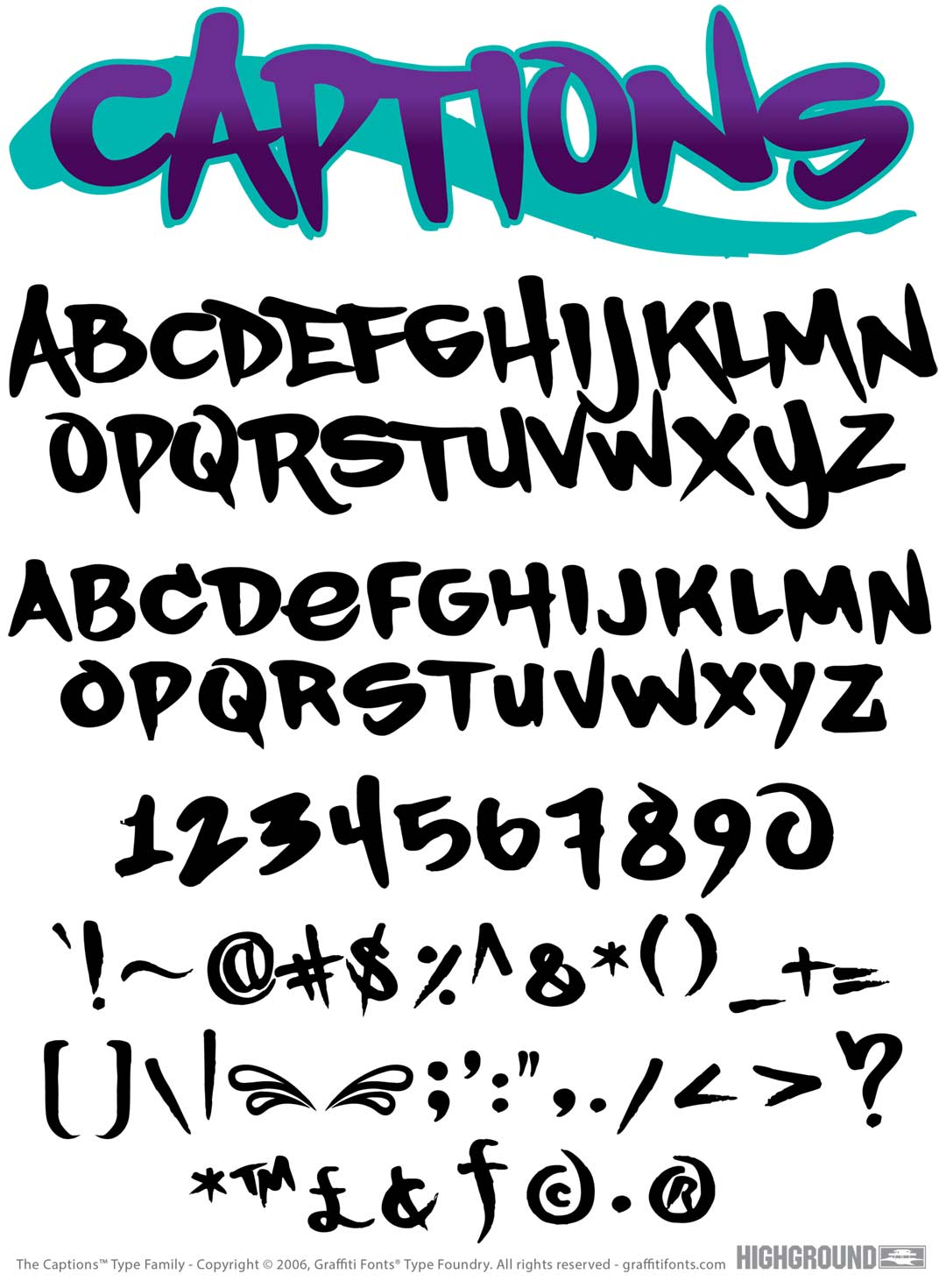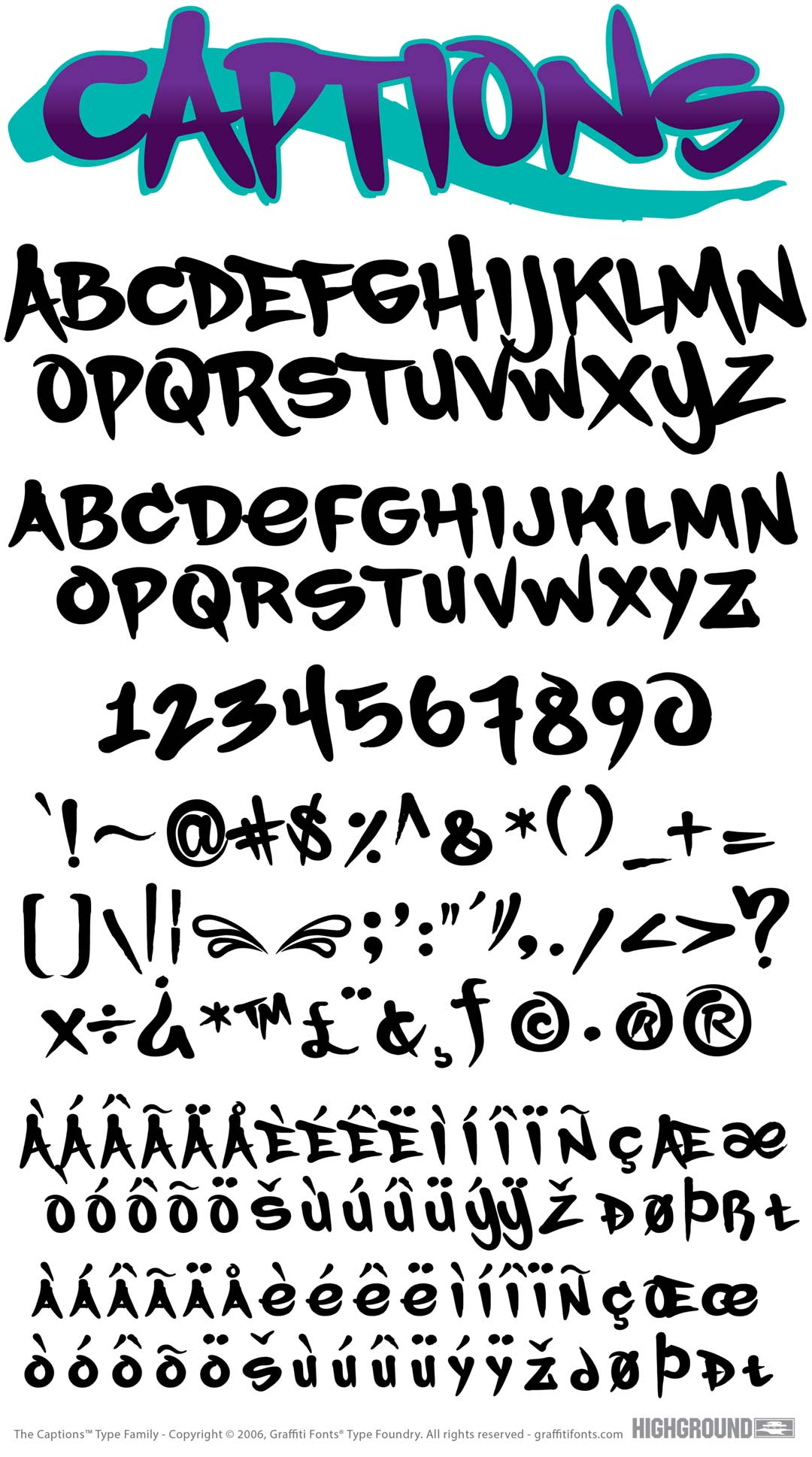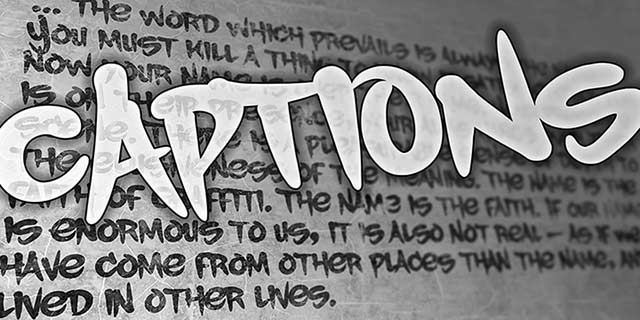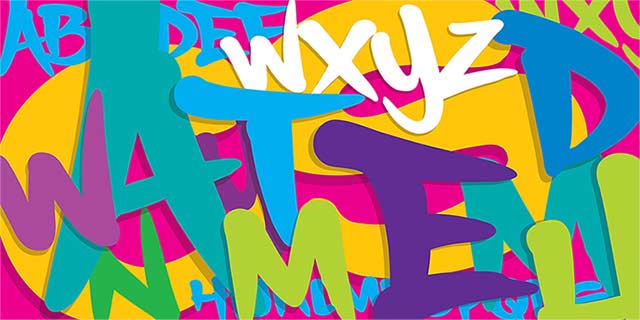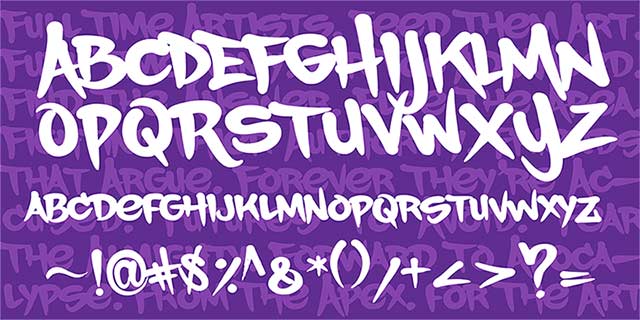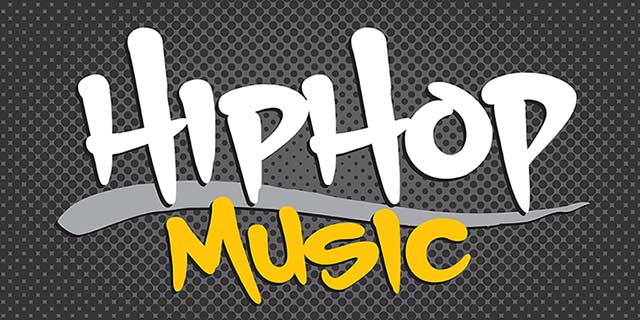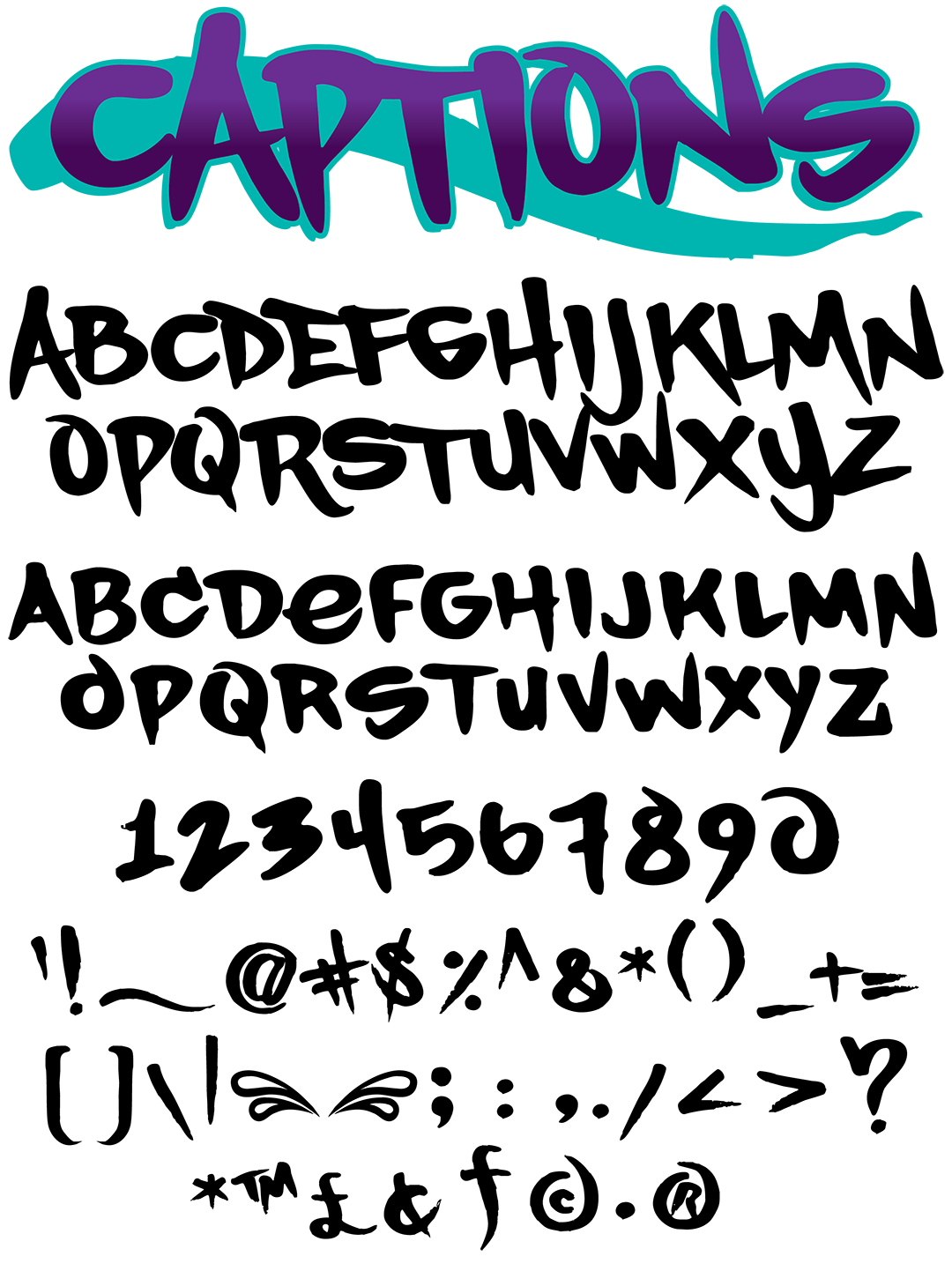
Captions Font
Captions Graffiti Alphabet
Captions Graffiti Font Family
Created to emulate the captions that often accompany full scale, spray paint pieces & productions this simple graffiti style is legible & smooth. The font contains 116 characters including uppercase & lowercase alphabets, numbers, symbols, punctuation, flourishes & dingbats. The original characters were written with a "phantom" (New York Outline Cap) then transferred to ink before digitization. The solid fill & smooth lines make this a versatile, clean & legible style.